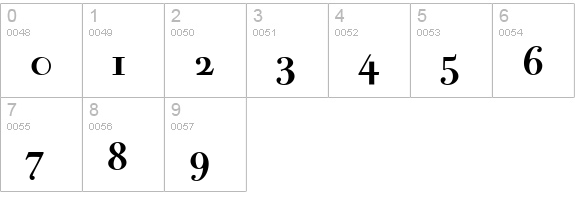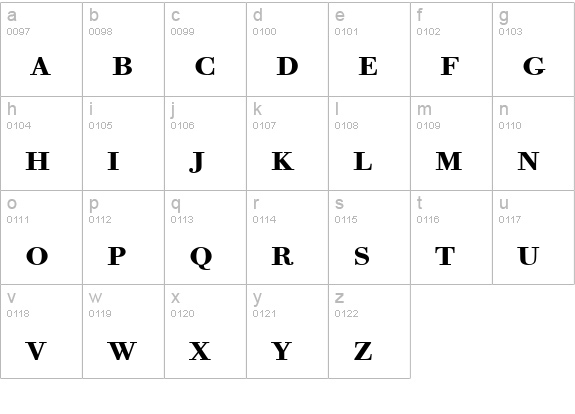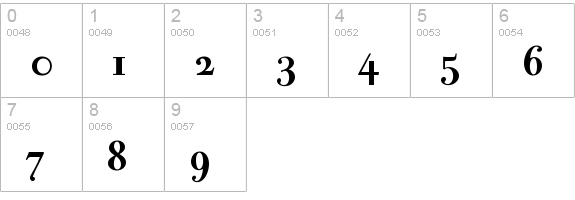
Bodoni Old Face BE Medium Small Caps & Oldstyle Figures Font Details
Bodoni Old Face BE Medium Small Caps & Oldstyle Figures is a balanced, medium-weight variant in the Bodoni typeface family \xE2\x80\x94 well suited to sub-headlines, navigation, and balanced editorial work.
Bodoni Old Face BE Medium Small Caps & Oldstyle Figures font exudes sophistication and elegance with its timeless design. This classic typeface pays homage to the renowned Bodoni style, featuring small caps and oldstyle figures that add a touch of vintage charm to any project. The medium weight strikes the perfect balance between boldness and subtlety, making it versatile for a wide range of design applications. What sets this font apart is its seamless blend of traditional aesthetics with a modern twist, making it a must-have for designers seeking a refined and polished look. Whether you're working on editorial layouts, branding materials, or invitations, Bodoni Old Face BE Medium Small Caps & Oldstyle Figures font will elevate your designs with its understated sophistication. Best of all, this exquisite font is available for free download at FontsMarket.com, allowing you to access its beauty and elegance without any cost. Don't miss out on the opportunity to enhance your projects with this stunning typeface that effortlessly combines tradition and contemporary flair.